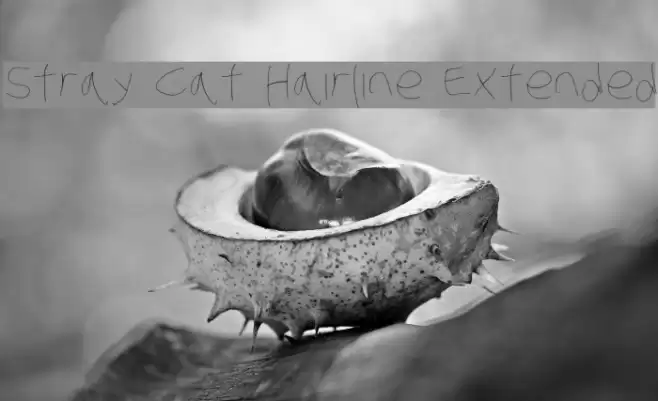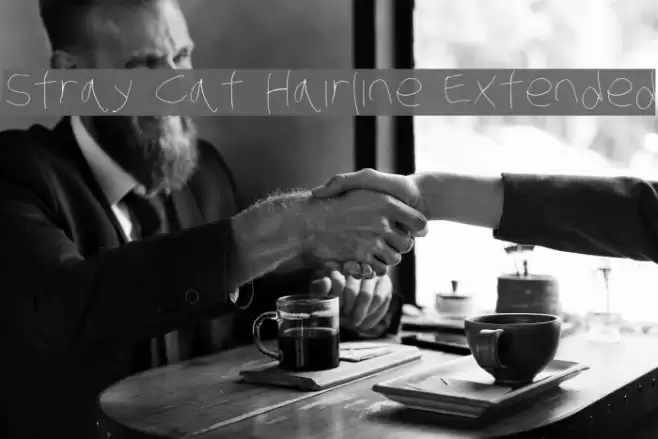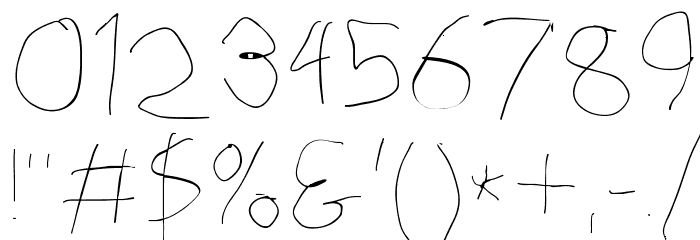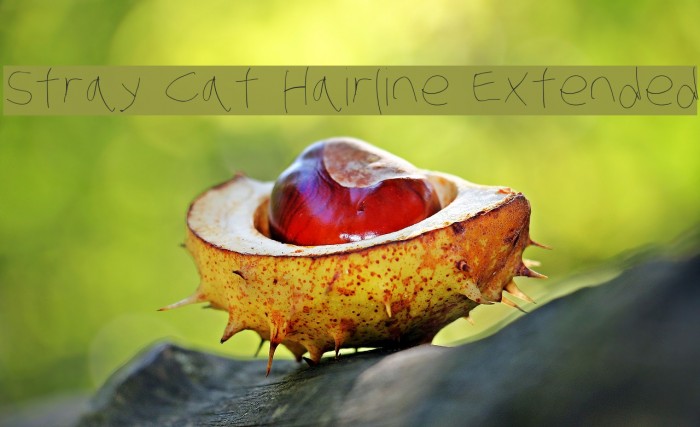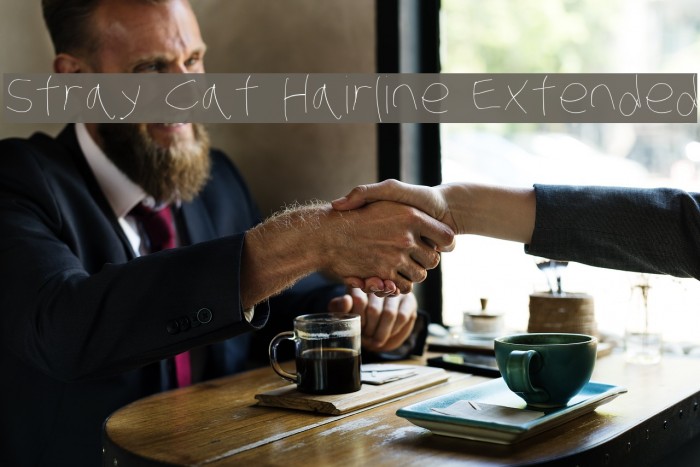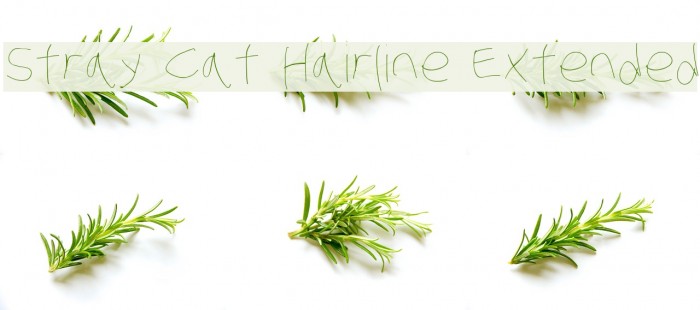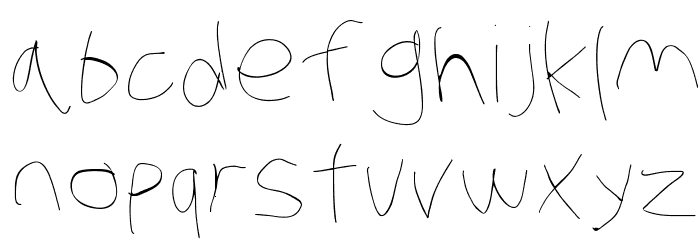
Stray Cat Hairline Extended Font
Stray Cat Hairline Extended Description
This font features a playful and casual handwritten style, characterized by its thin, delicate strokes and extended letterforms. The uppercase and lowercase letters maintain a consistent, free-flowing appearance, with a slight irregularity that adds to its charm. The numerals and special characters follow the same whimsical design, making it suitable for informal and creative projects. Its hairline weight gives it an airy feel, while the extended width provides a unique touch. The font's overall aesthetic is light-hearted and approachable, perfect for projects that require a personal and friendly tone.
A playful, handwritten font with thin strokes and extended letterforms from Uncategorized fonts.
- Proposed Projects: Ideal for greeting cards, children's books, personal blogs, and creative branding.
- Weight: Light
- Width: Expanded
- Overall Style: Casual, Playful
- Use Case: Headlines, Informal text, Creative projects